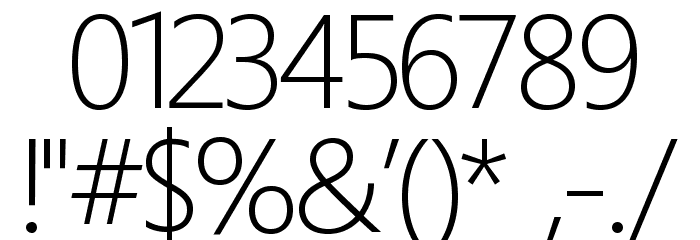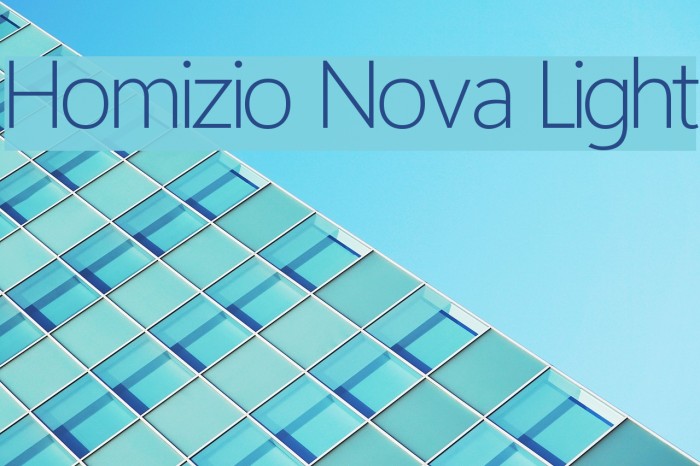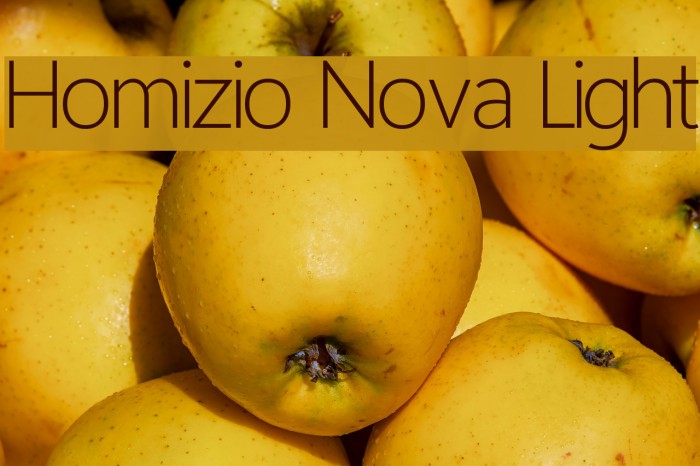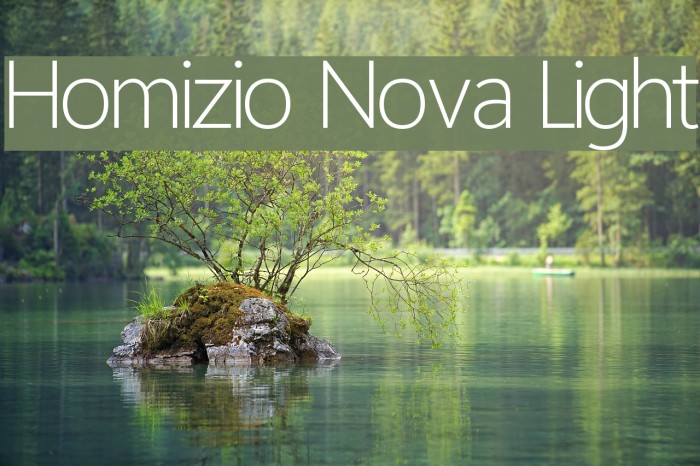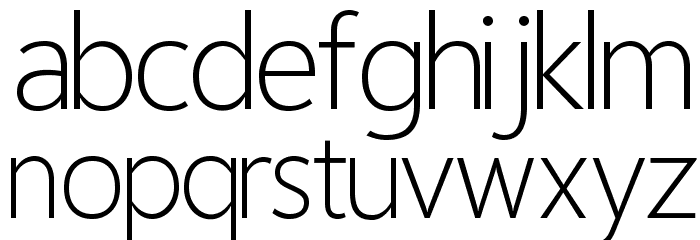
Homizio Nova Light
This font exhibits a clean and modern sans-serif style, characterized by its geometric shapes and uniform stroke widths. The uppercase letters are tall and slightly narrow, providing a sleek and contemporary appearance. The lowercase letters maintain a consistent height with rounded edges, enhancing readability and balance. Numerals are proportionate and align well with the overall design, making them suitable for various applications. Special characters are clearly defined, maintaining the font's minimalist aesthetic. The overall design is versatile, making it suitable for both digital and print media.
A modern, geometric sans-serif font with clean lines and balanced proportions.
- ( This is Homizio Nova, a sans-serif font designed by Alvaro Thomaz. FREE )
- Proposed Projects: Ideal for branding, web design, corporate materials, and editorial layouts.